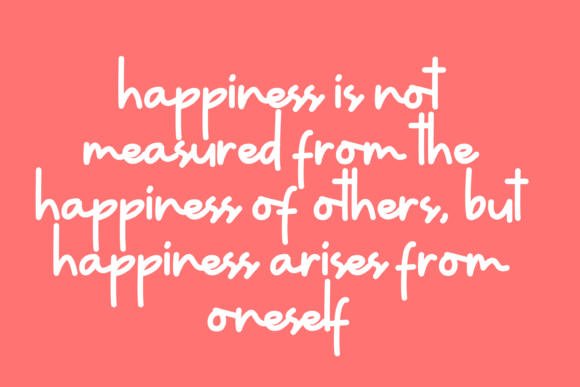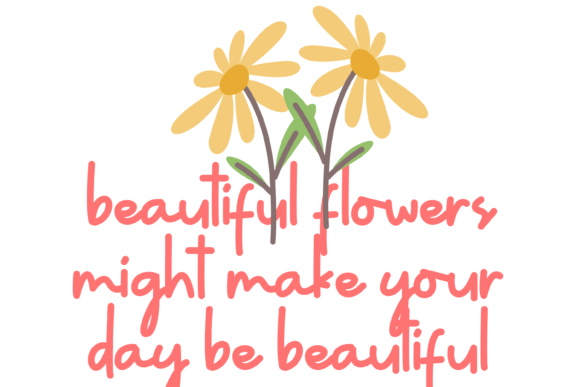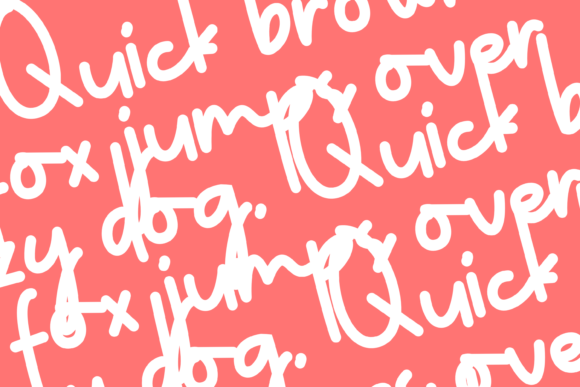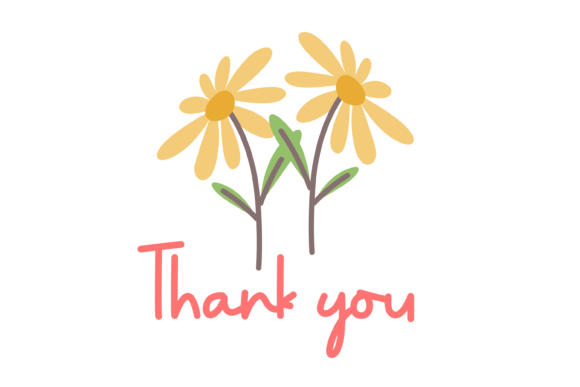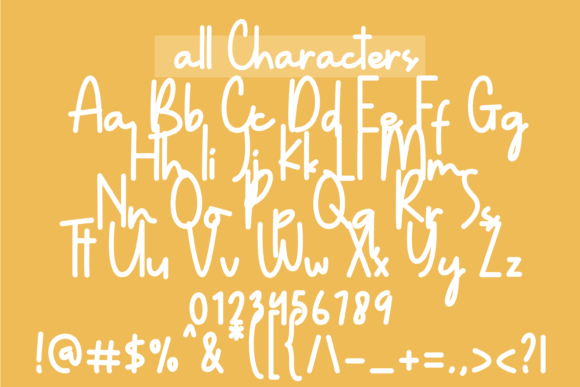
Discover the Beauty of Different Sunset Font: Elevate Your Designs with a Simple yet Stunning Handwritten Style
Are you a designer or crafter looking for a font that can add a touch of elegance and simplicity to your creations? Look no further than the Different Sunset Font. This beautiful handwritten font is perfect for creating eye-catching logos, branding, and quotes that will leave a lasting impression on your audience.
What Makes Different Sunset Font So Special?
Different Sunset Font is a simple and relaxed handwritten font that boasts a unique and beautiful touch. Every letter is carefully crafted to give your designs a personal and organic feel that will set you apart from the crowd. Whether you’re creating a logo, branding materials, or social media graphics, this font is sure to make your design come alive!
The Benefits of Using Different Sunset Font
So, why choose Different Sunset Font for your next design project? Here are just a few benefits of using this stunning font:
- Ease of use: Different Sunset Font is incredibly easy to use, even for those who are new to design. Its simple and clean lines make it perfect for a wide range of applications, from logos to social media graphics.
- Unique and beautiful: Every letter in Different Sunset Font has a unique and beautiful touch that will add a personal touch to your designs. This font is perfect for designers who want to create something truly special and eye-catching.
- Versatile: Different Sunset Font is incredibly versatile and can be used for a wide range of design applications, from logos and branding to quotes and social media graphics.
- High-quality: This font is of exceptionally high quality, ensuring that your designs will look professional and polished.
How to Use Different Sunset Font in Your Designs
Using Different Sunset Font in your designs is incredibly easy. Here are a few tips to get you started:
- Pair it with bold colors: Different Sunset Font looks stunning when paired with bold, bright colors. Try pairing it with a bold red or orange for a striking contrast.
- Use it for quotes: This font is perfect for creating inspirational quotes and social media graphics. Try using it to create a motivational quote or a fun and uplifting message.
- Create a logo: Different Sunset Font is perfect for creating eye-catching logos that will set your brand apart. Try using it to create a simple yet stunning logo that will make your brand shine.
Tips and Tricks for Getting the Most Out of Different Sunset Font
Here are a few tips and tricks for getting the most out of Different Sunset Font:
- Experiment with different sizes: Different Sunset Font looks great in a wide range of sizes, from small and delicate to large and bold. Experiment with different sizes to find the one that works best for your design.
- Try it with different textures: This font looks great when paired with different textures, from smooth and clean to rough and distressed. Try pairing it with a texture that complements your design.
- Use it with other fonts: Different Sunset Font can be paired with other fonts to create a unique and eye-catching combination. Try pairing it with a bold and modern font for a striking contrast.
Different Sunset Font is a simple yet stunning handwritten font that is perfect for designers and crafters who want to add a touch of elegance and simplicity to their creations. With its unique and beautiful touch, this font is sure to make your designs come alive! Whether you’re creating a logo, branding materials, or social media graphics, Different Sunset Font is the perfect choice.